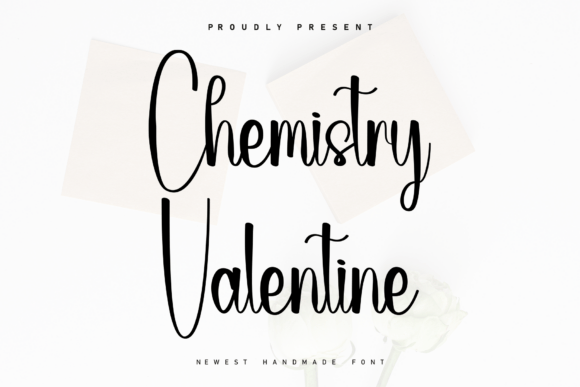
Designing with Heart: The Chemistry Valentine Font
Have you ever sat down with a pen and paper, and let the words flow onto the page? That’s the magic of handwriting – a personal touch that speaks directly to the heart. As designers, we strive to capture that essence in our work, and that’s where the Chemistry Valentine Font comes in.
This beautiful, handmade script typeface is designed to evoke the feeling of authentic handwriting, with fluid strokes and charming loops that make it perfect for creating romantic, intimate designs. Whether you’re branding artisanal products, crafting greeting cards, or designing event invites, the Chemistry Valentine Font is a valuable addition to your toolkit.
With its versatility and unique charm, the Chemistry Valentine Font is a go-to choice for designers looking to add a personal touch to their work. And with its ease of use, you can take it from a cozy coffee shop menu to a sophisticated wedding suite in no time.
Chemistry Valentine Font Key Features
- Font Family: Chemistry Valentine Font
- Unique Characteristics: Hand-drawn, cursive script font with a romantic and elegant feel, perfect for Valentine’s Day and other special occasions
Designer Review: Chemistry Valentine Font
Overall, I’d say the Chemistry Valentine Font is a unique and charming addition to any design project. It has a certain whimsy to it that can add a lot of personality to a piece. ✨ I particularly like how the font’s quirky lines and imperfect shapes give it a handmade feel, which can be really effective in branding and marketing materials.
The Chemistry Valentine Font also does a great job of evoking a sense of playfulness and romance, making it a great choice for Valentine’s Day or other love-themed projects. ✨ The font’s cursive script is also very readable, which is a plus in my book.
- ⚠️ Limited flexibility: The font’s unique style can make it tricky to use in certain situations, such as in body text where readability is key.
- ⚠️ Limited language support: As with many script fonts, the Chemistry Valentine Font may not be optimized for non-Latin languages.
While the Chemistry Valentine Font has its limitations, I think it’s a great choice for designers looking to add a touch of personality and whimsy to their work. With a little creativity and planning, this font can be used to create truly unique and effective designs. Just be sure to use it wisely and in the right context.
Tips: Use the Chemistry Valentine Font for Valentine’s Day-themed designs, such as greeting cards, invitations, or social media posts.
Tips: Use the Chemistry Valentine Font for more complex designs, such as posters, flyers, or brochures.
Tips: Use the Chemistry Valentine Font for presentations, reports, or other documents that require a touch of romance.
The Chemistry Valentine Font is ideal for designs related to love, relationships, and romance, such as:
- Valentine’s Day cards and gifts
- Wedding invitations and decorations
- Anniversary and birthday celebrations
Alternatives to Chemistry Valentine Font
Great Vibes Font is a modern, elegant script font that works well for romantic and wedding invitations. It has a flowing, handwritten feel and is perfect for designers who want to add a touch of sophistication to their designs. Compared to Chemistry Valentine Font, Great Vibes Font is more elegant and refined, making it a great choice for formal events and high-end branding.
Cream Soda Font is a playful, cursive font that is reminiscent of old-fashioned ice cream shops. It’s perfect for designers who want to add a touch of whimsy and nostalgia to their designs. Compared to Chemistry Valentine Font, Cream Soda Font is more casual and fun, making it a great choice for food and beverage branding, as well as children’s products.
Carolyna Pro Font is a beautiful, elegant script font that is perfect for designers who want to add a touch of luxury and sophistication to their designs. It has a flowing, handwritten feel and is great for wedding invitations, branding, and packaging. Compared to Chemistry Valentine Font, Carolyna Pro Font is more refined and elegant, making it a great choice for high-end branding and formal events.